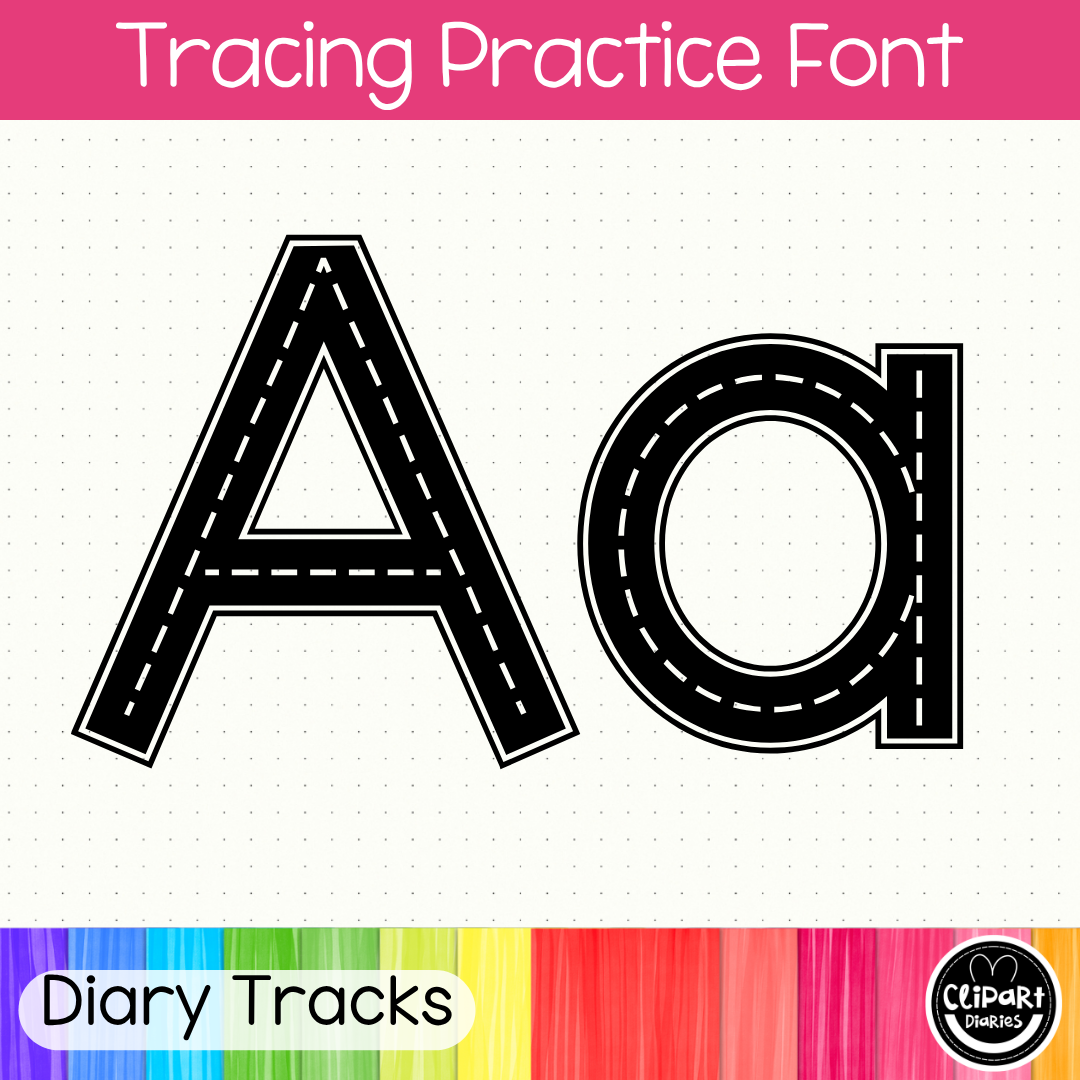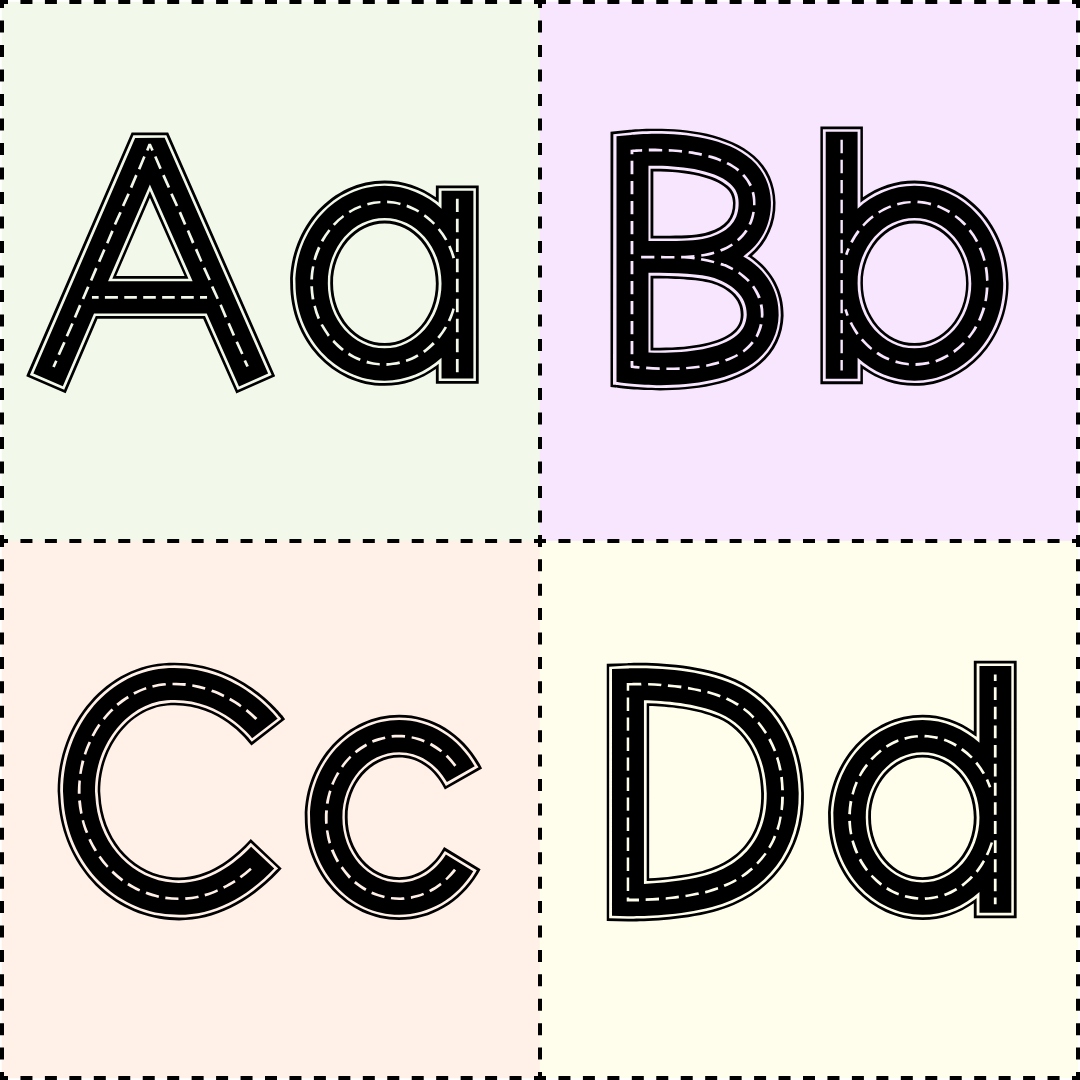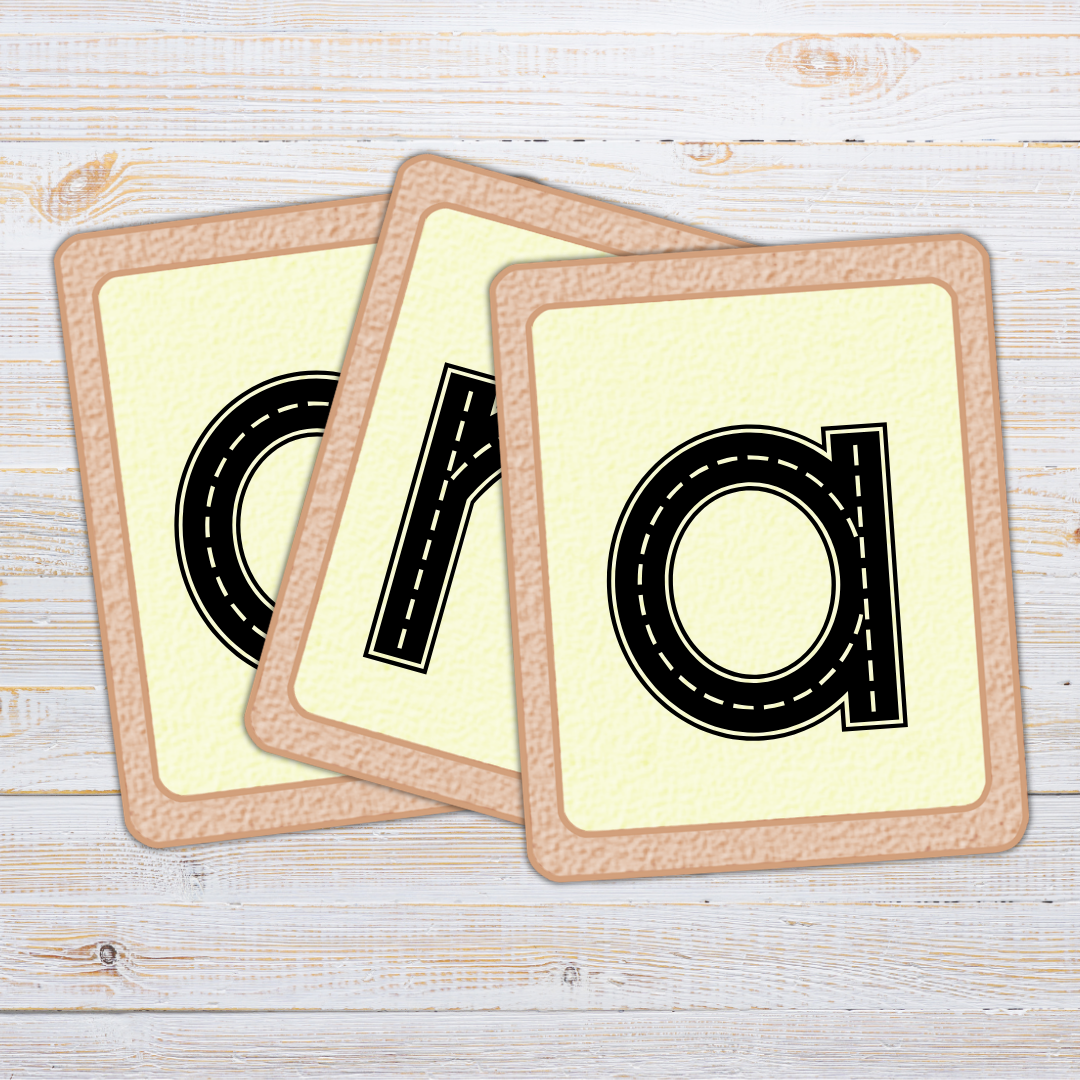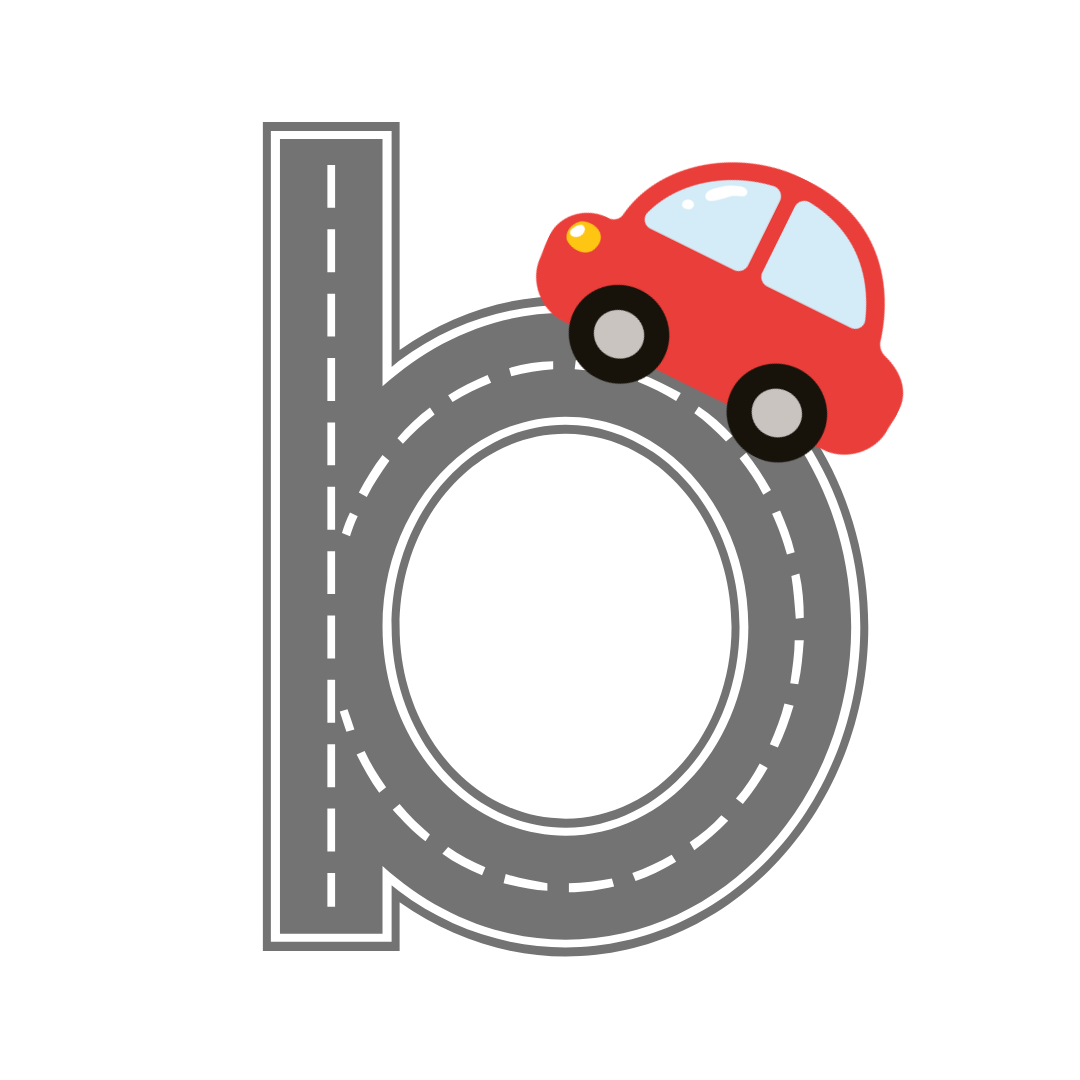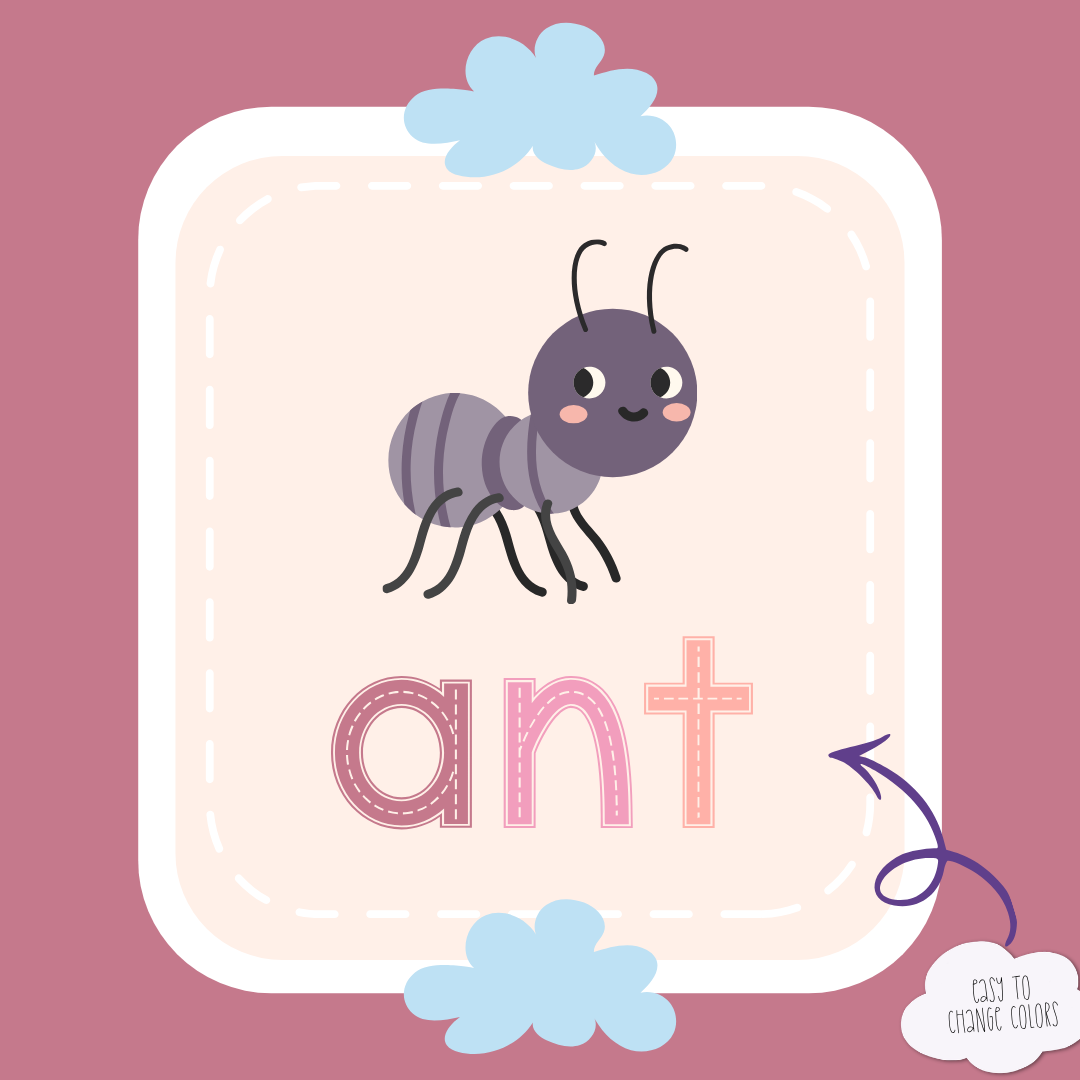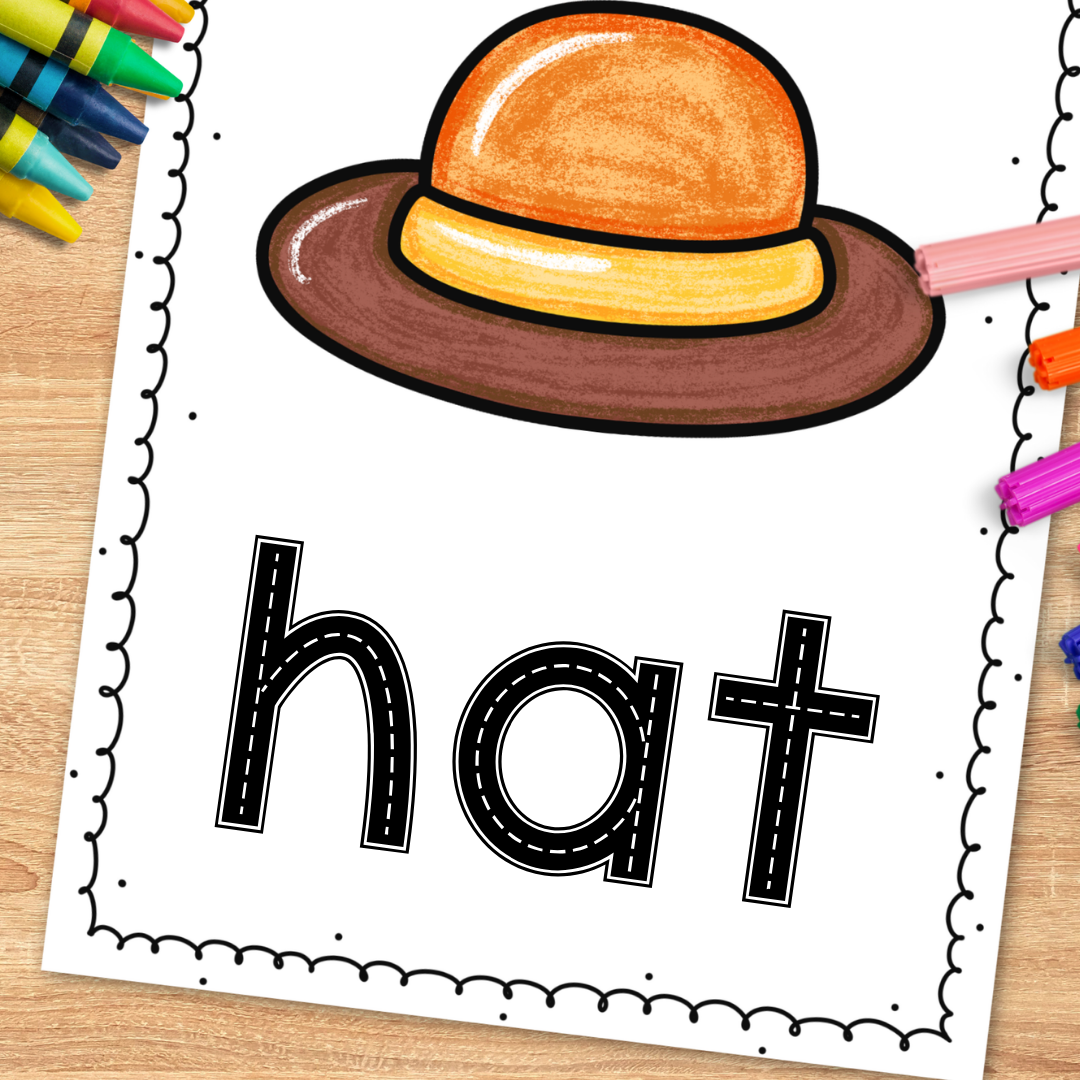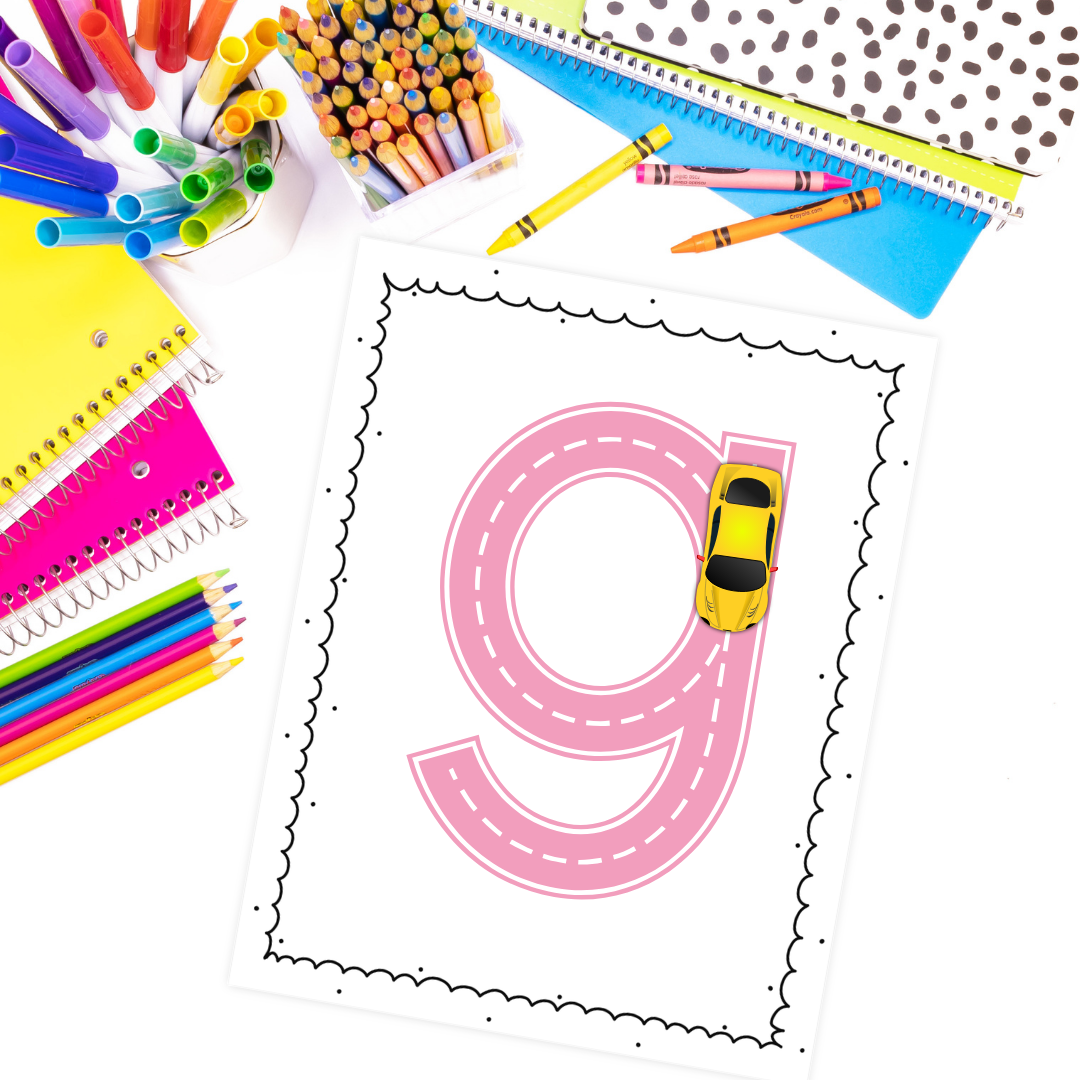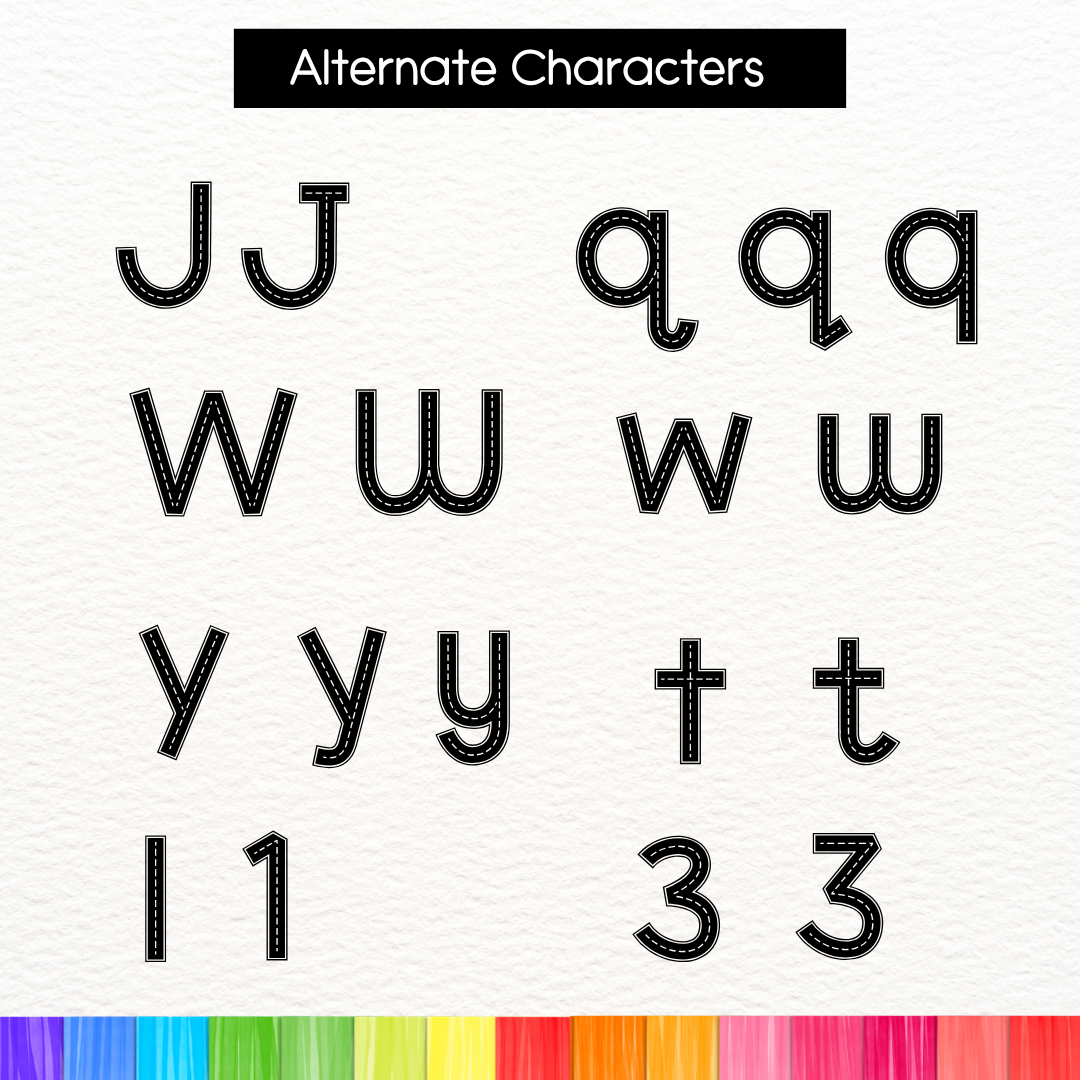
Race Tracks ABC Alphabet Handwriting Tracing Font
This font has letters in road tracks style with arrow guides, perfect for your print handwriting practice, game cards, and fine motor activities. This set includes all capital letters, small letters, and numbers best for toddler tracing, name tracing, letter recognition letter tracing and number tracing exercises worksheets.
Alternate characters for J, W, Y, q, t, w, 1, and 3 are also available. (See preview for the letter alternates.) This font supports multiple accents or languages.
Create fun and engaging activities for kids to trace letters with this font!